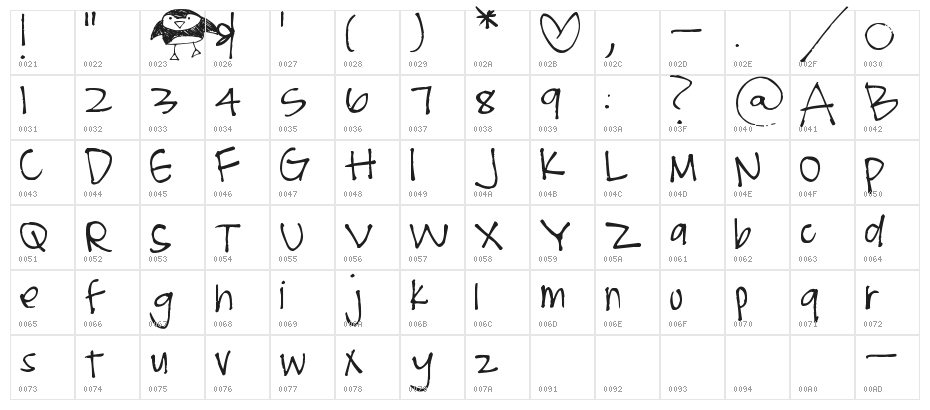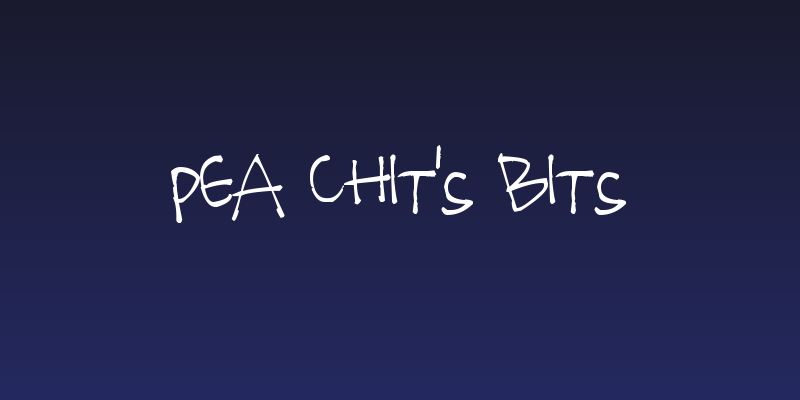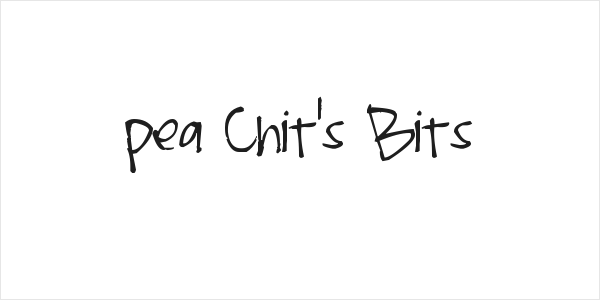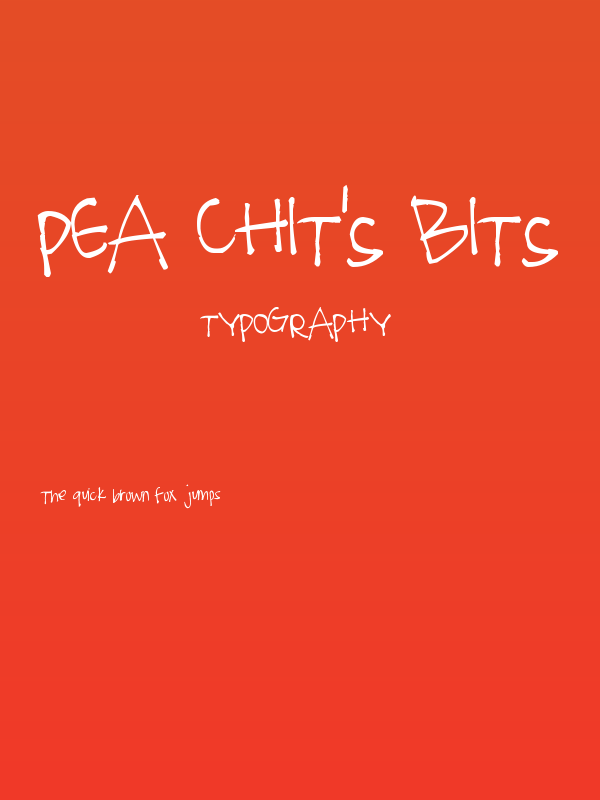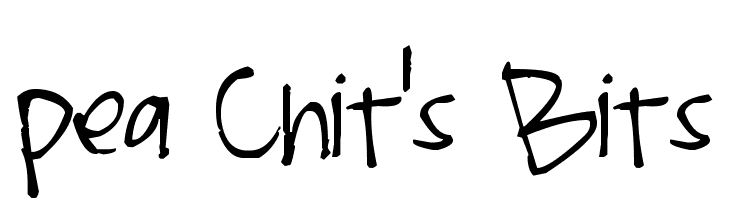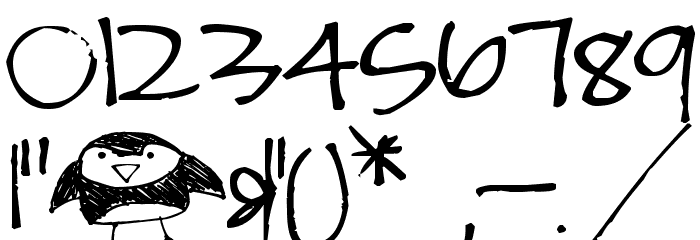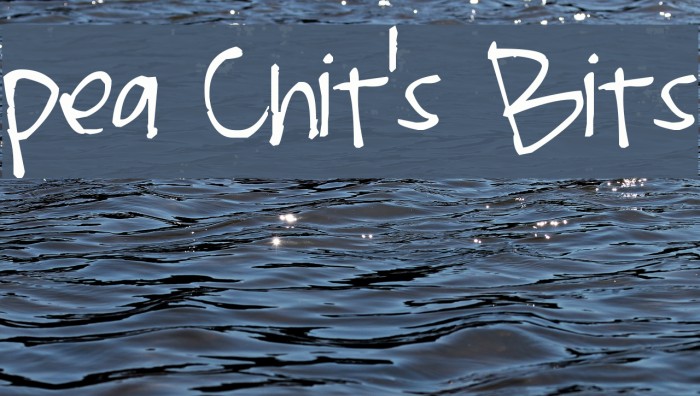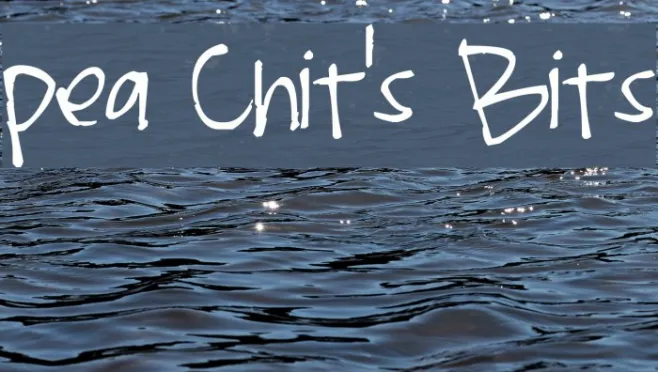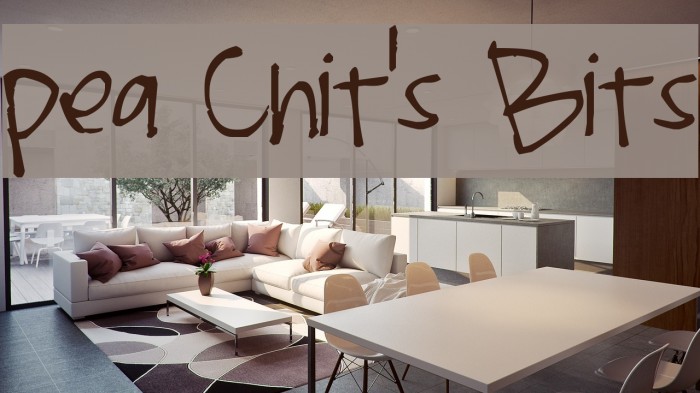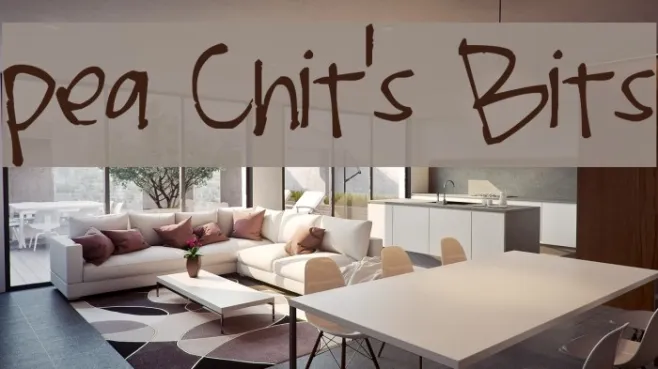
Pea Chit's Bits Font
Pea Chit's Bits Description
This playful and whimsical font features a handwritten style with a casual and informal appearance. The letters are uneven and slightly tilted, giving it a lively and dynamic feel. The strokes are bold and varied, with some characters having thicker lines than others, adding to its charm. The font includes both uppercase and lowercase letters, numbers, and a selection of special characters. Its unique and quirky design makes it suitable for creative projects that require a personal touch.
| Proposed Projects | Ideal for greeting cards, children's books, playful branding, and personal projects that require a fun and informal touch. |